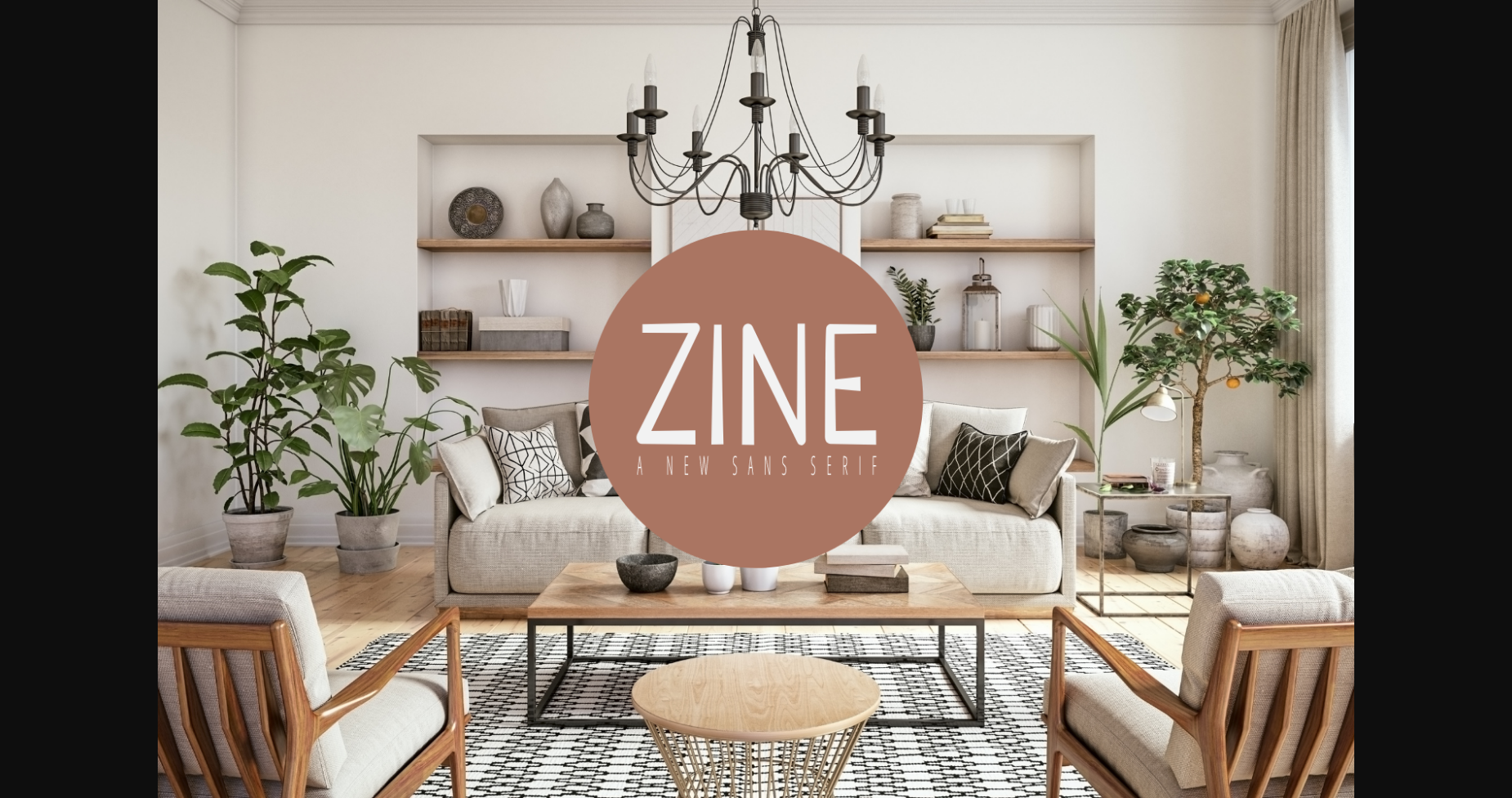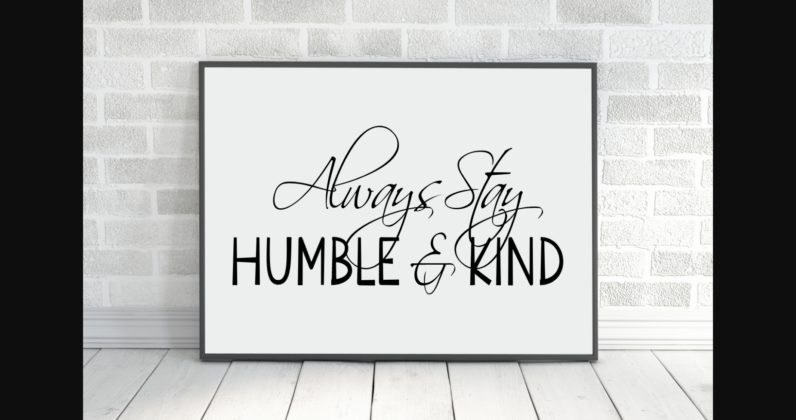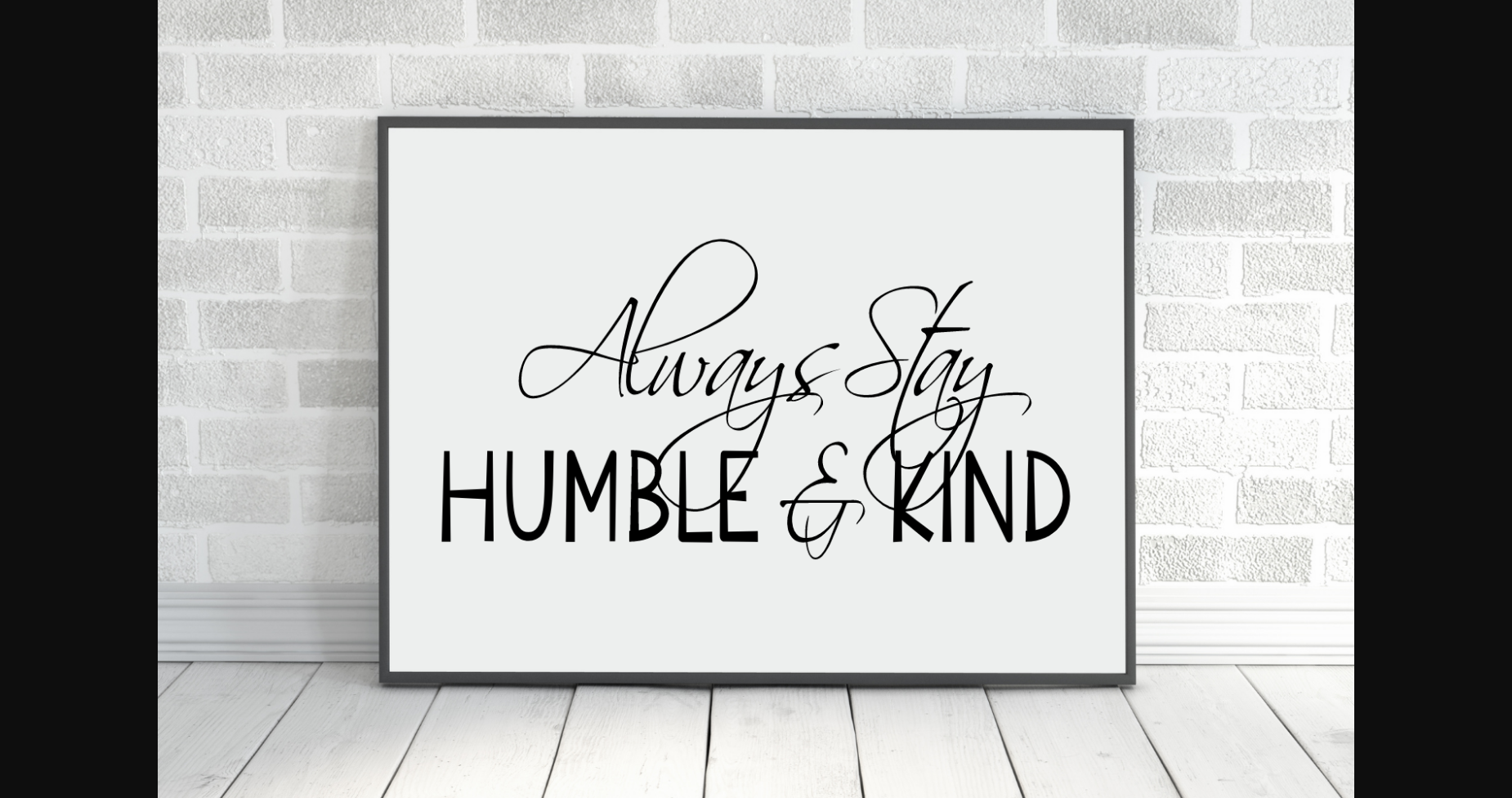
About Zine Font
Zine is a playful and creative sans serif font that embodies authenticity and a modern style in every character. Use it for artistic designs, wall art, stationery, branding, business cards, logos, and more.